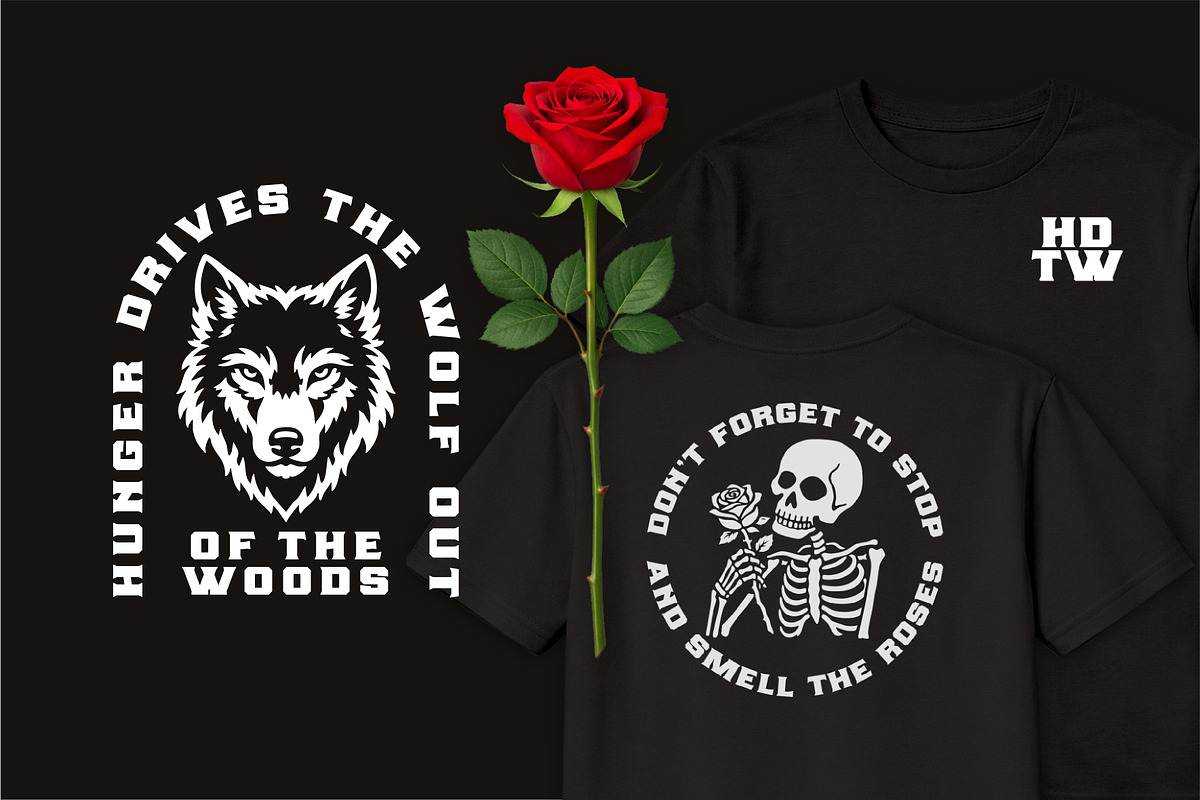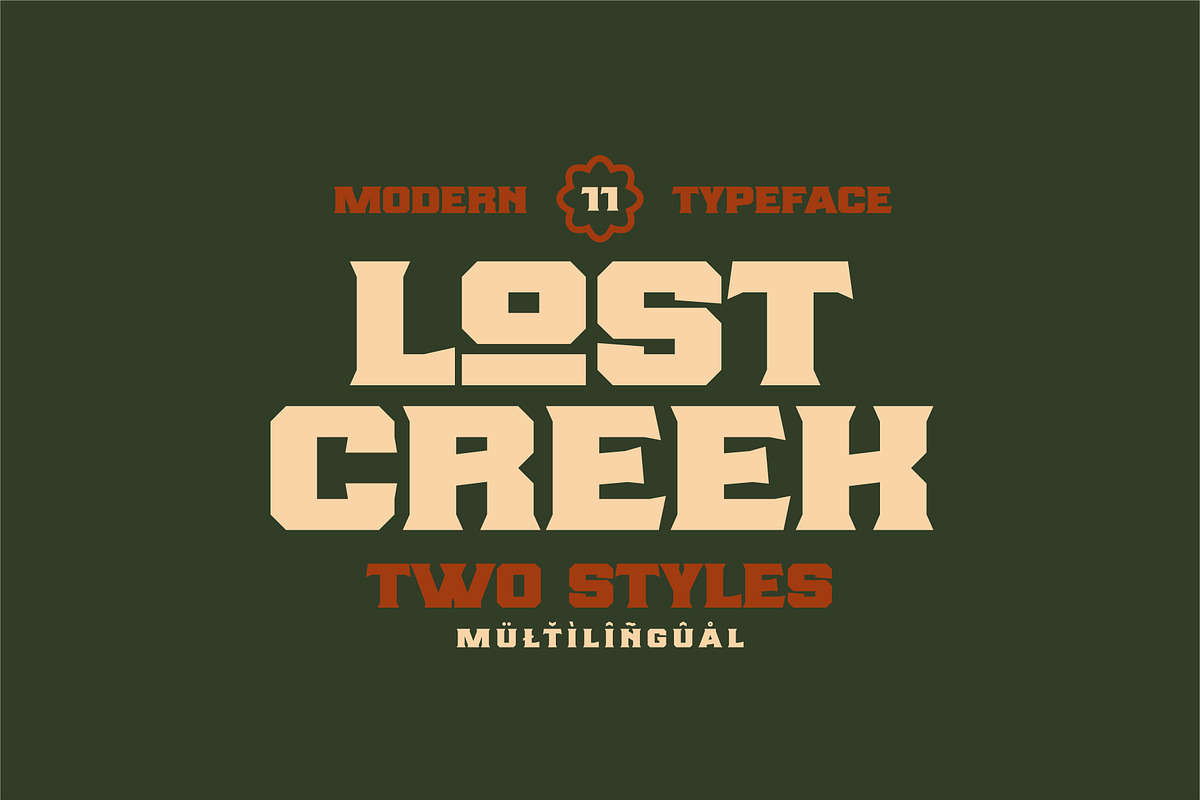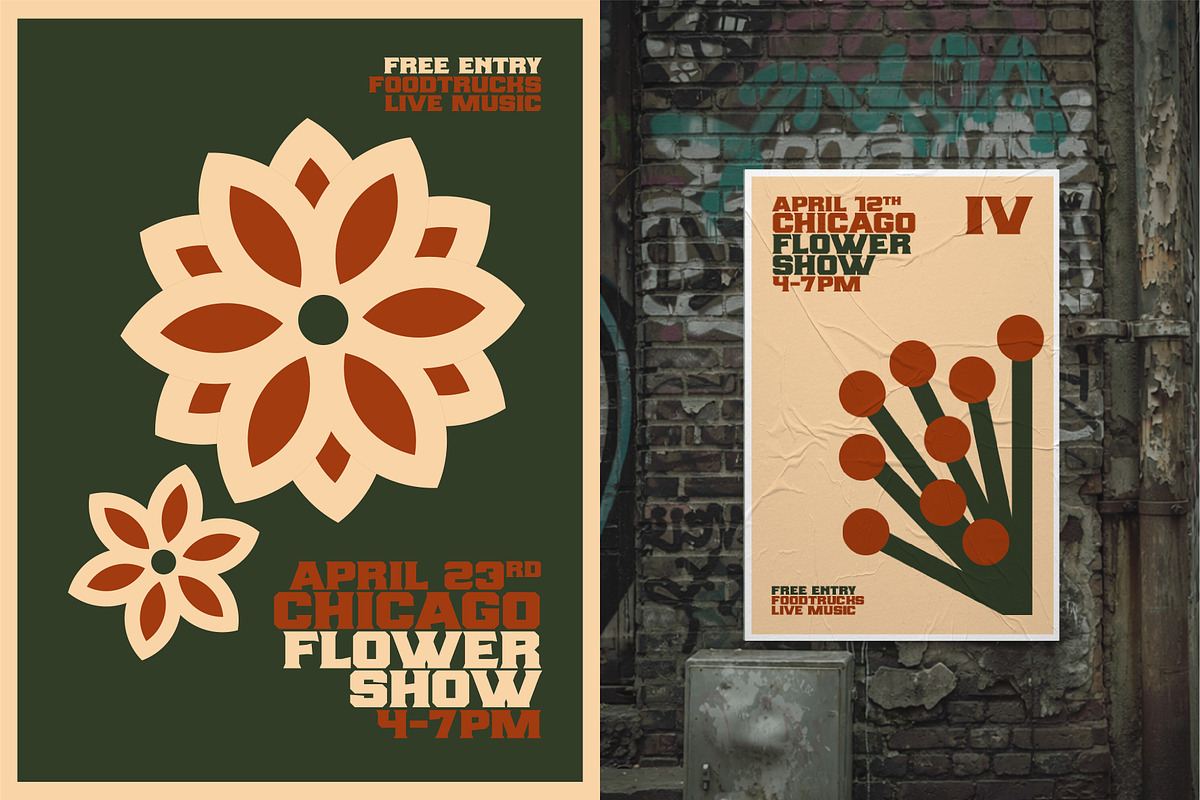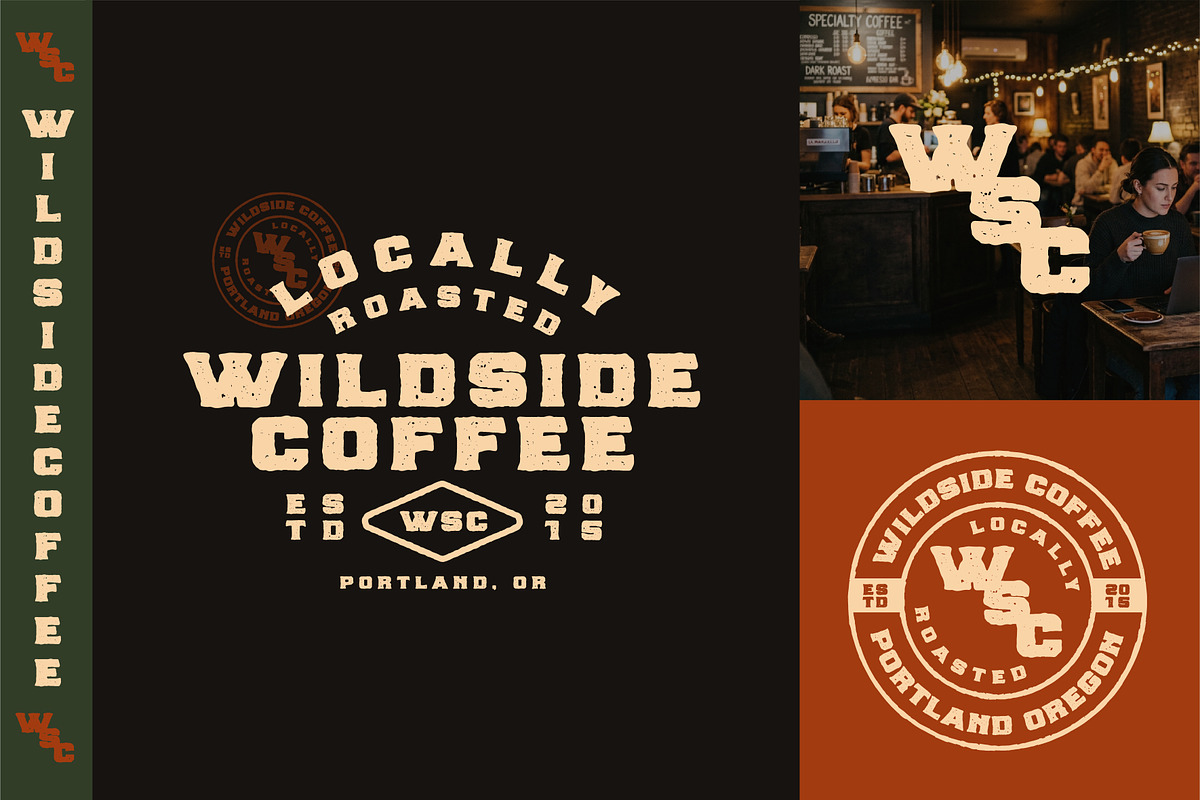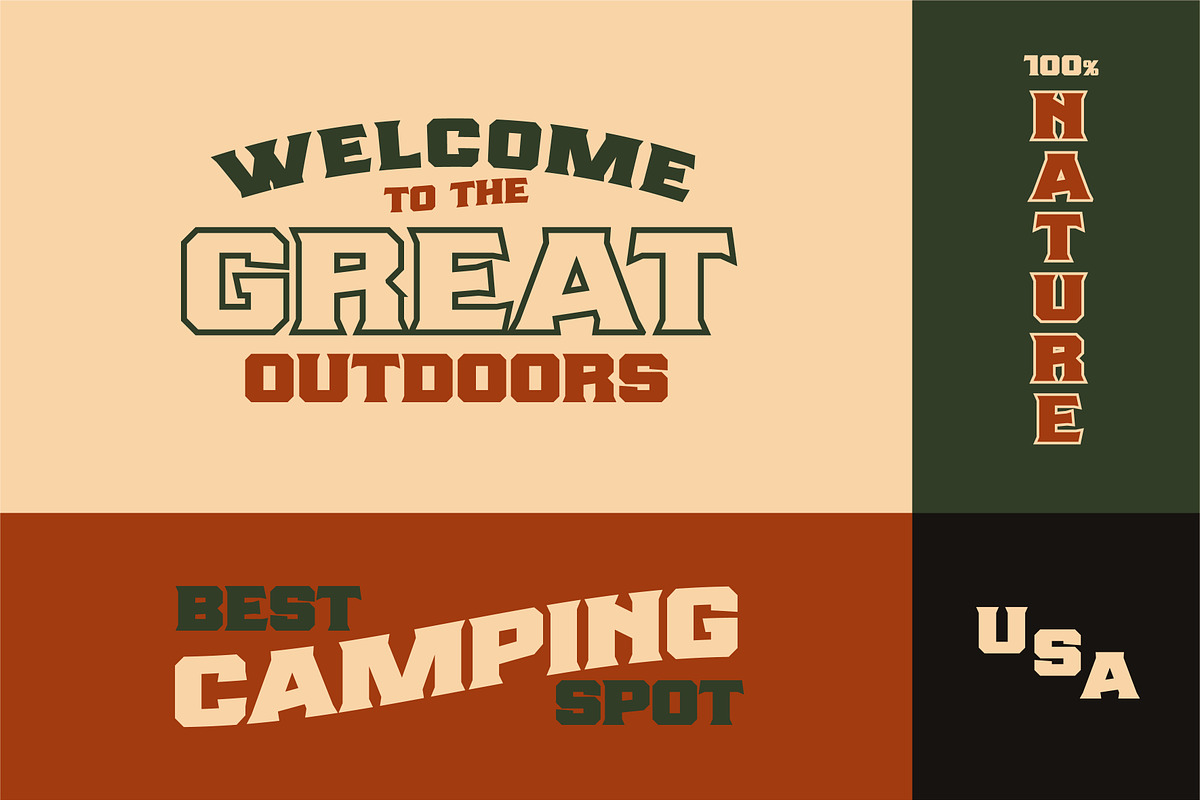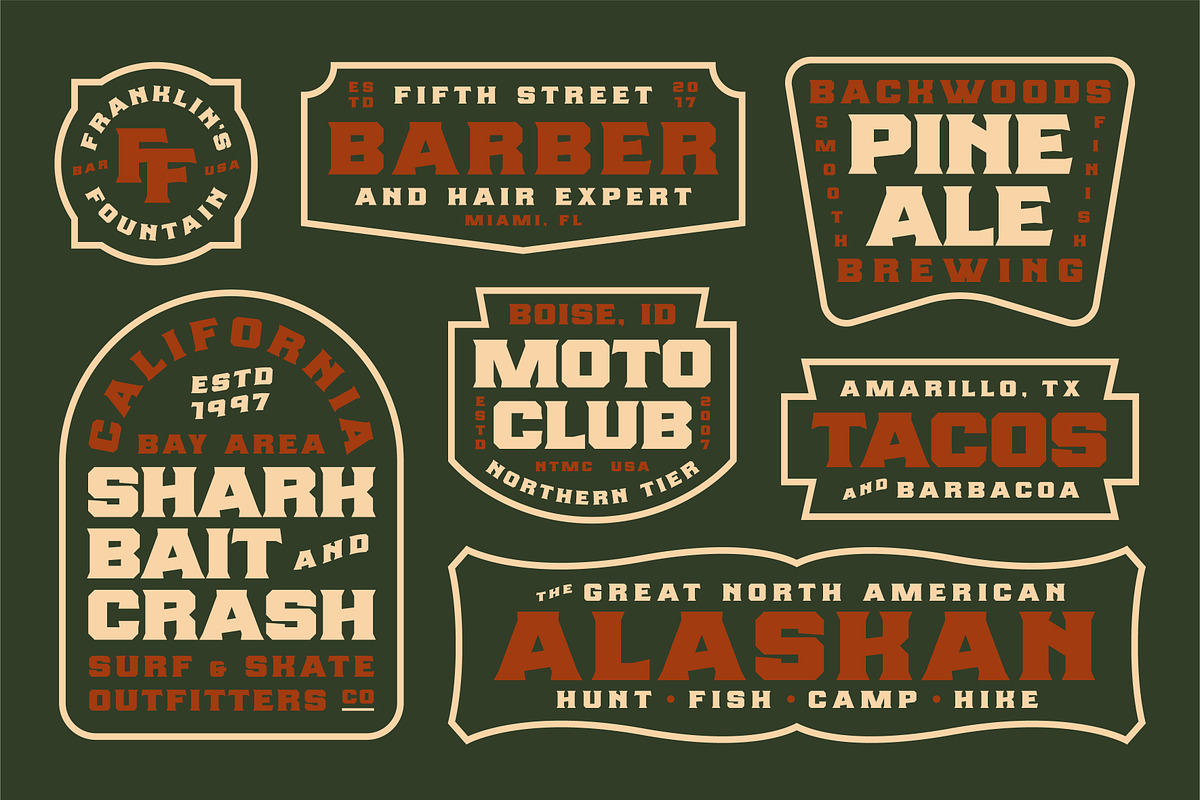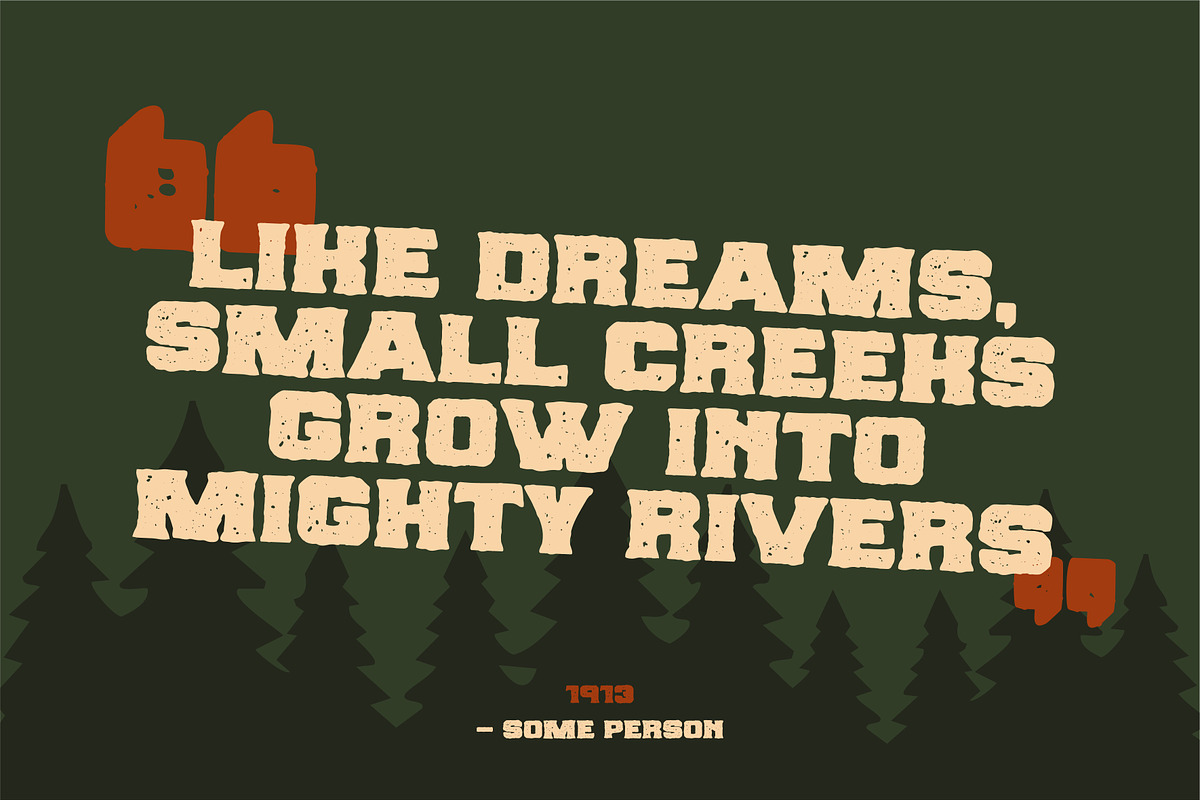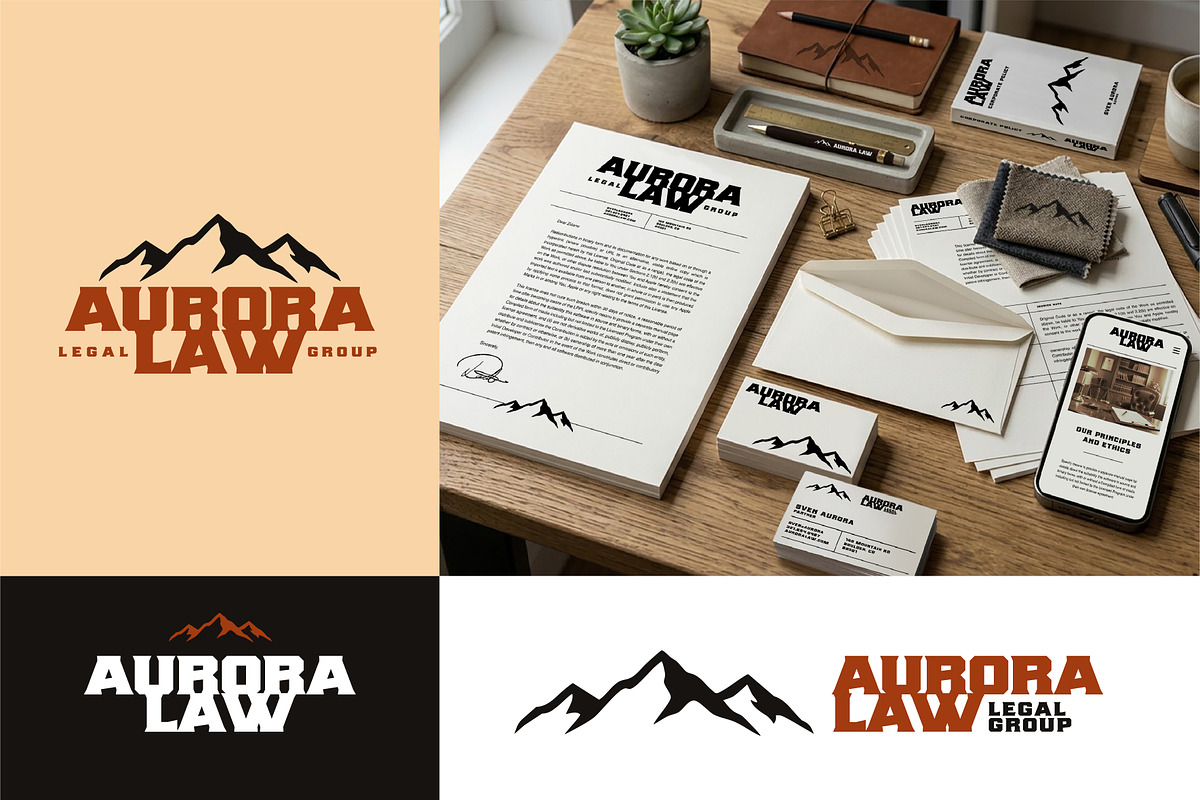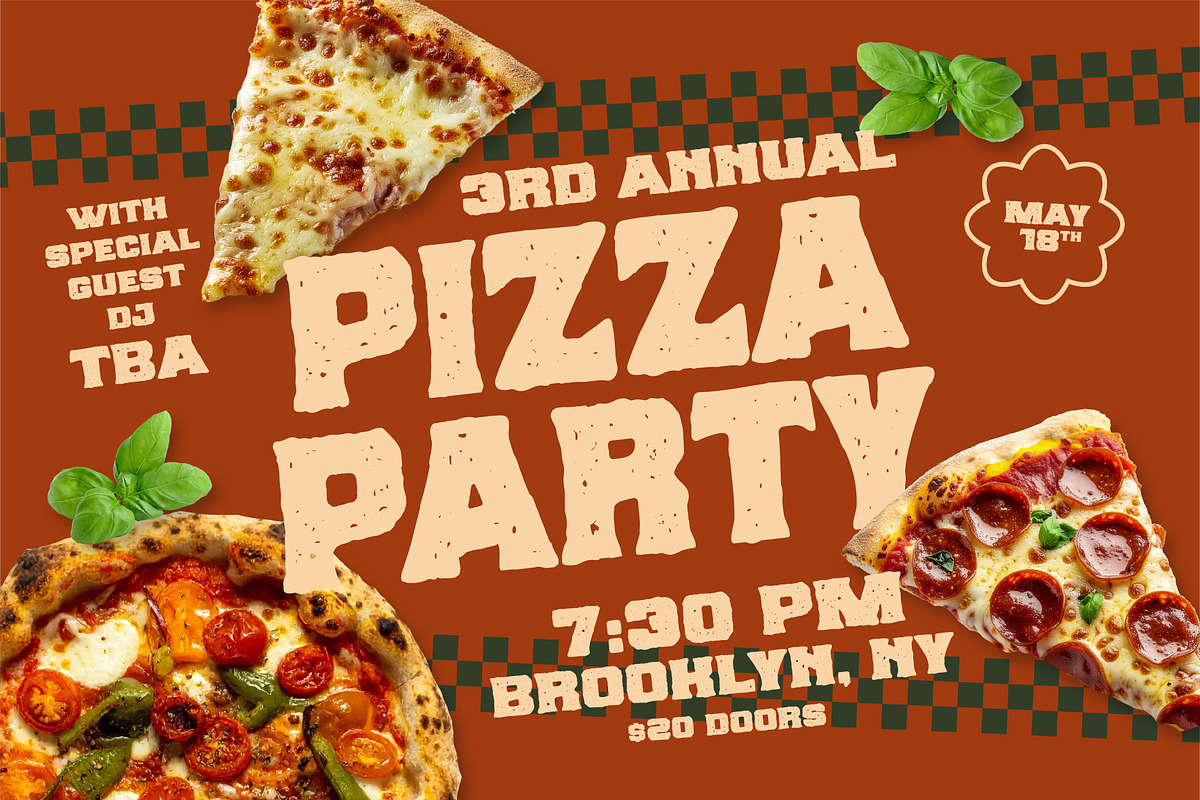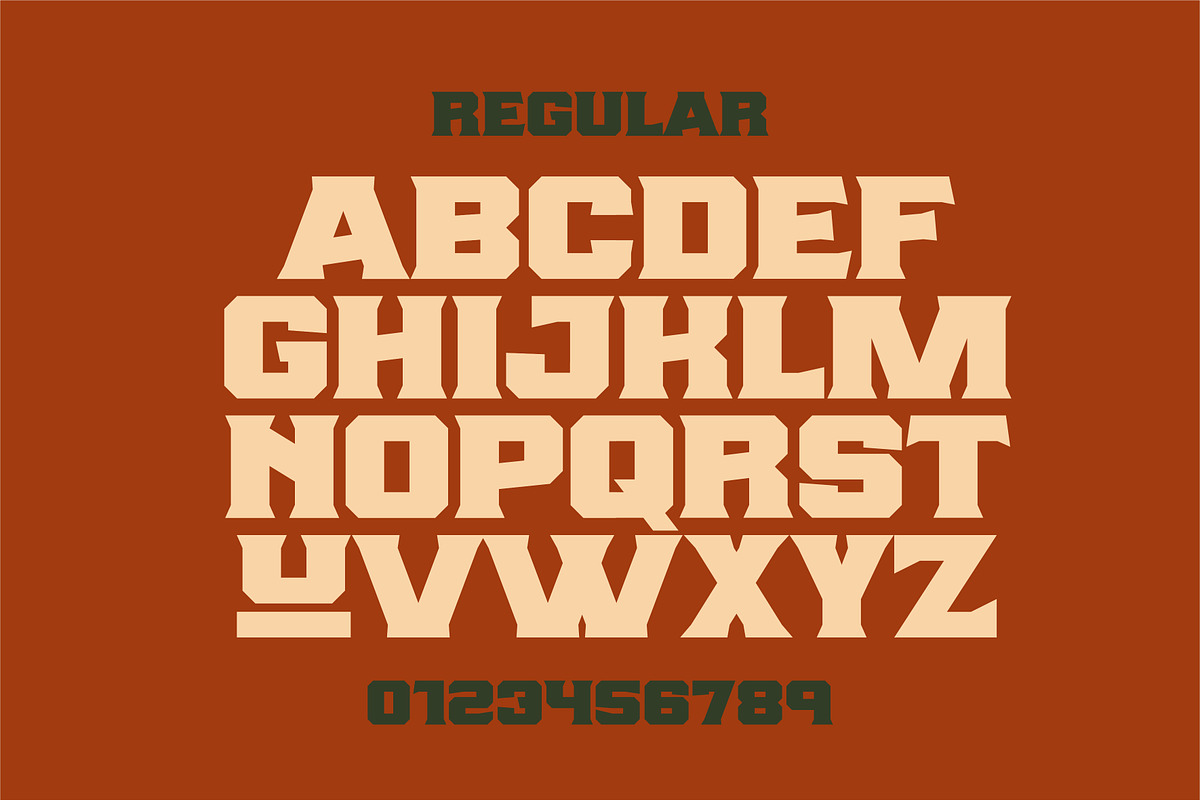
Lost Creek
Don't forget your paddle when heading down Lost Creek. But in all actuality, it really isn't all that hard to navigate. Lost Creek is a somewhat simple, yet bold serif font inspired from early to mid century Americana aesthetic. Perfect for subjects like book covers, menus, posters, flyers, and shirts. However, you will find many other applications.
Lost Creek comes in two styles (Regular, and Crusty) and is Multilingual covering many Euro languages. Fully packed your day to day symbols and basic glyphs. As a headline font, it is best used mid to large size projects but still looks great even when at smaller scale.